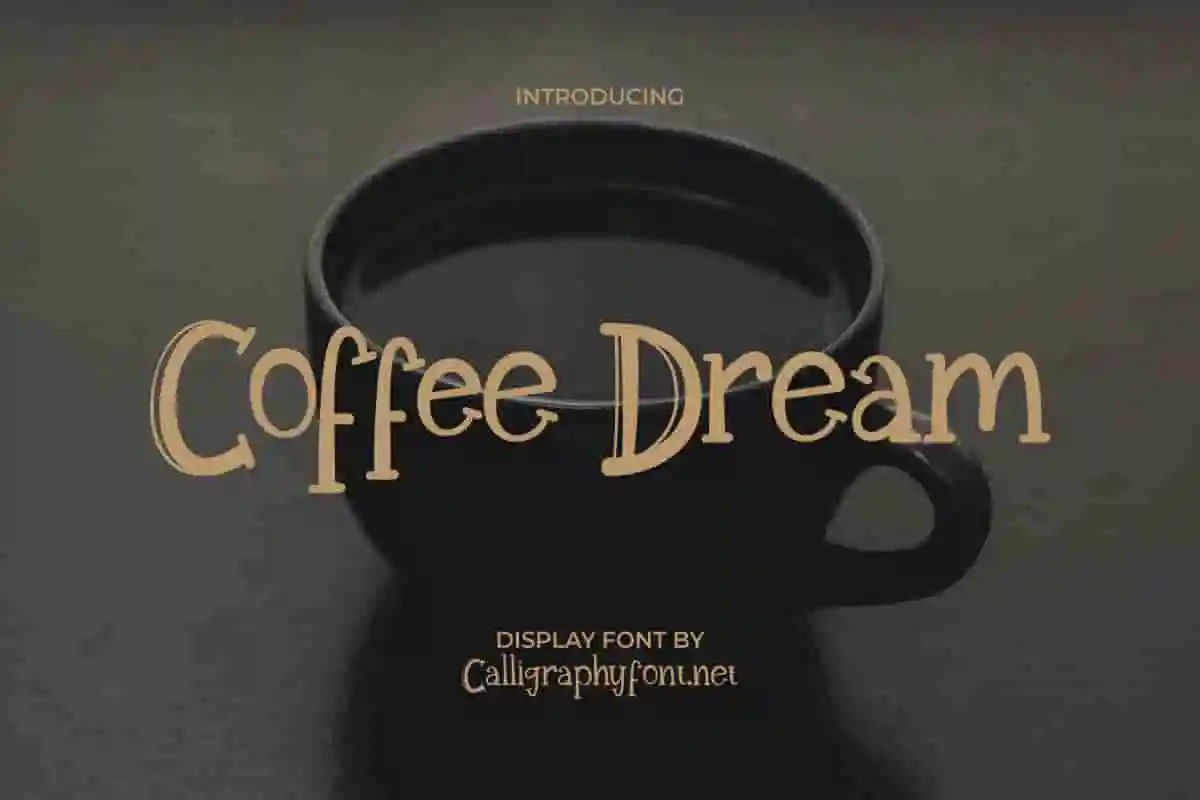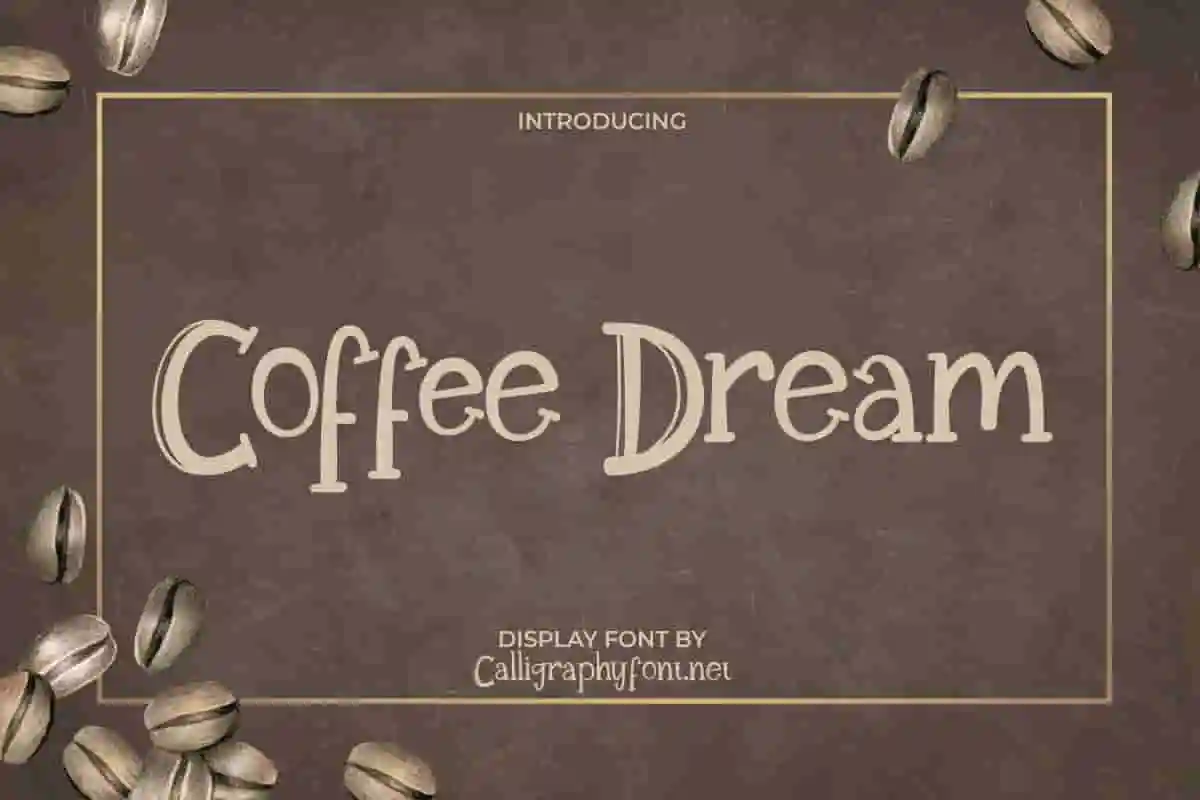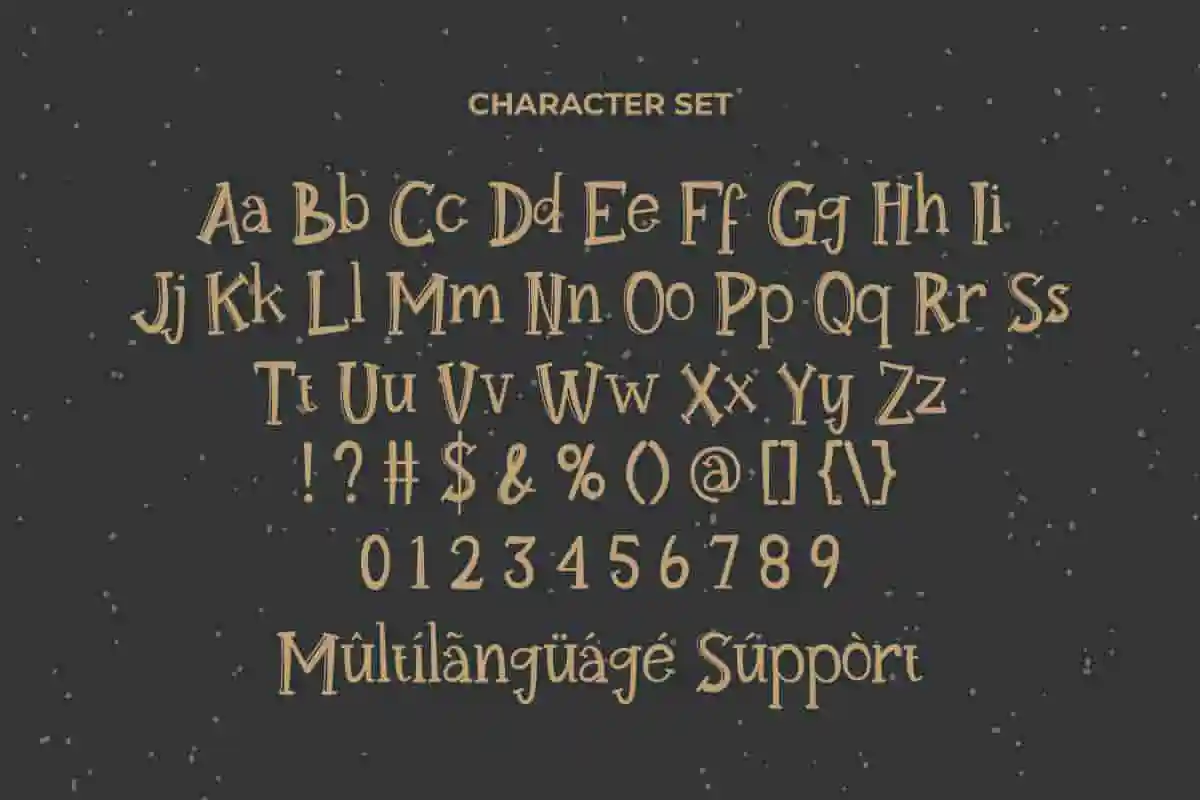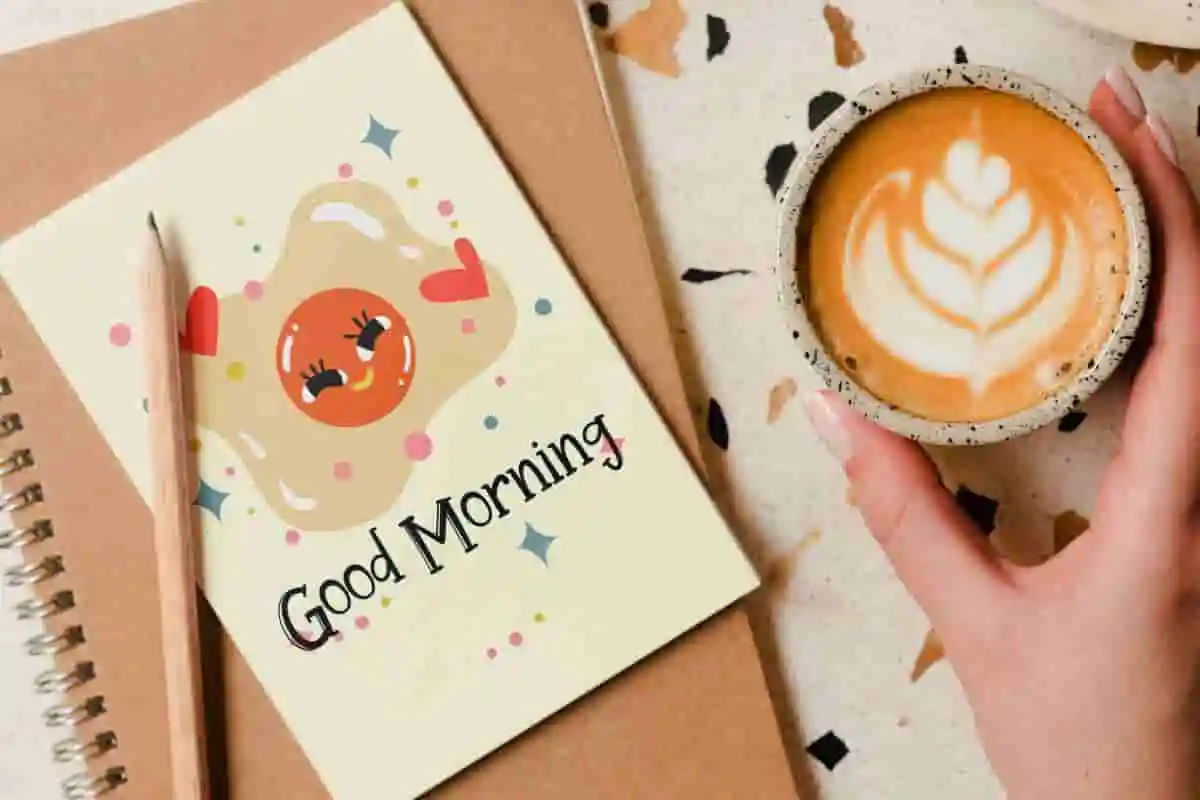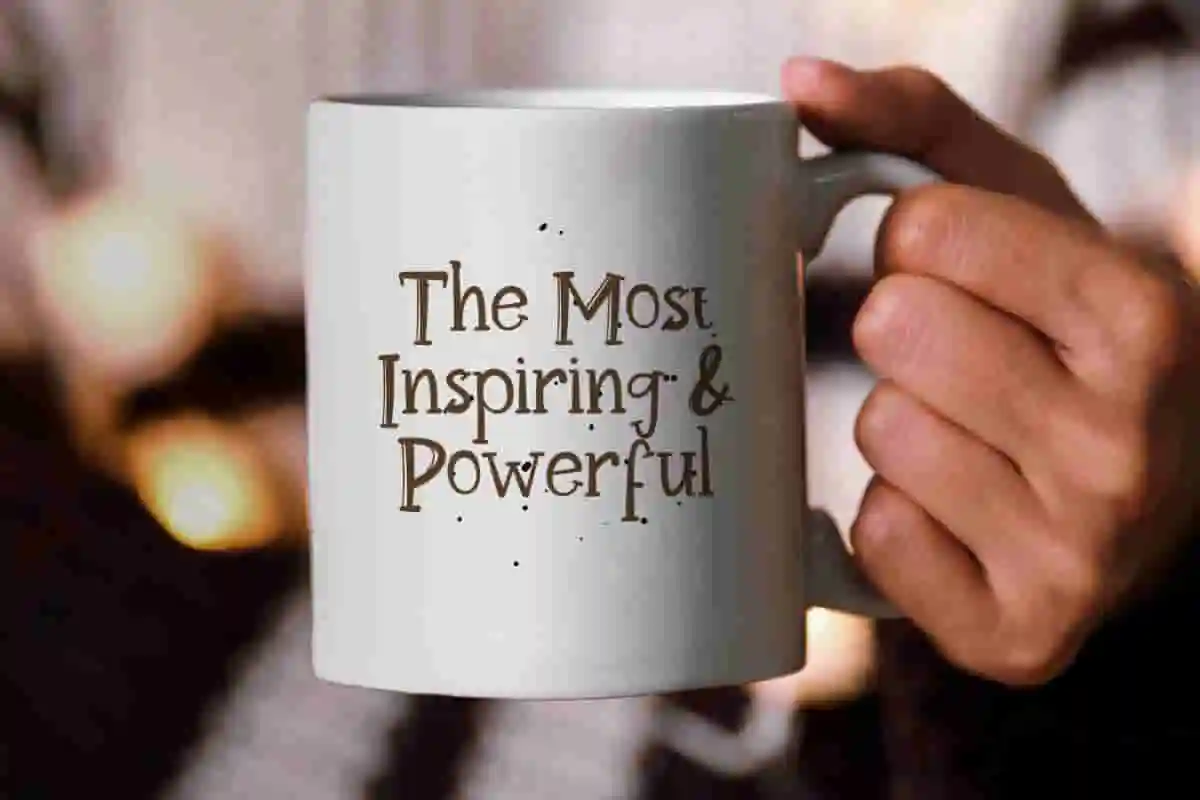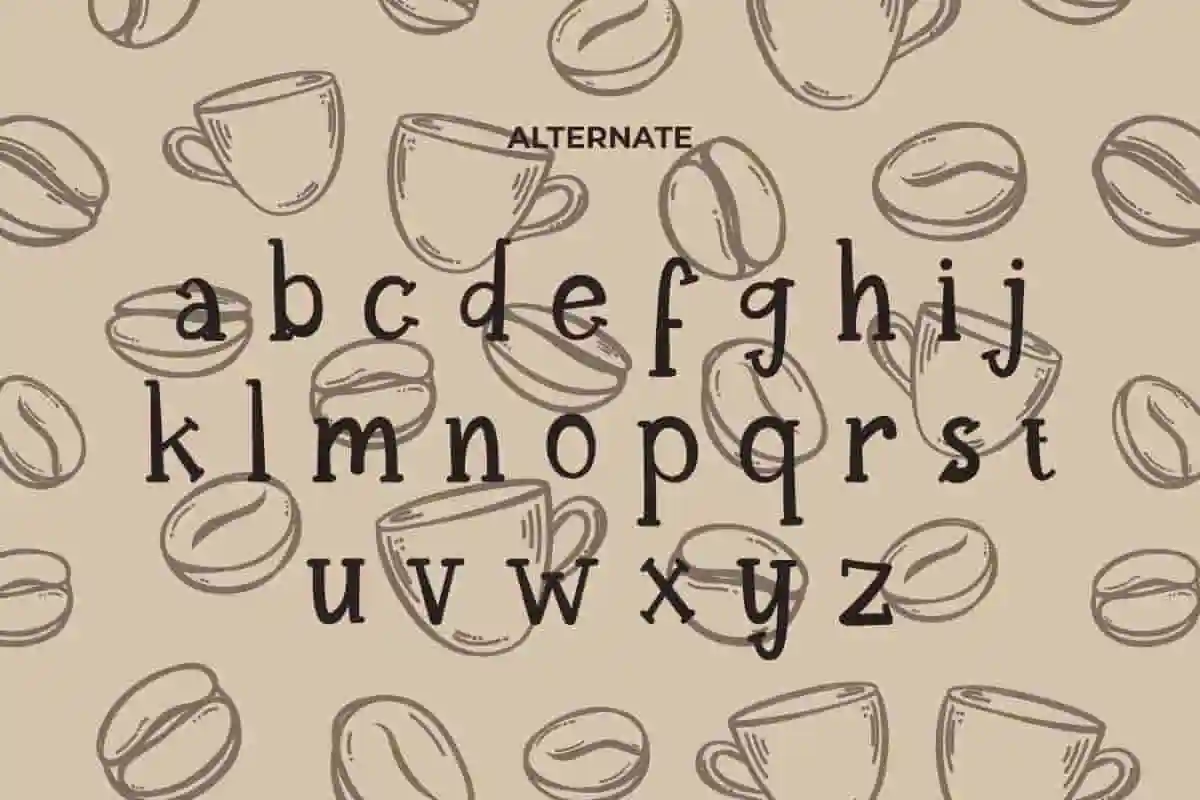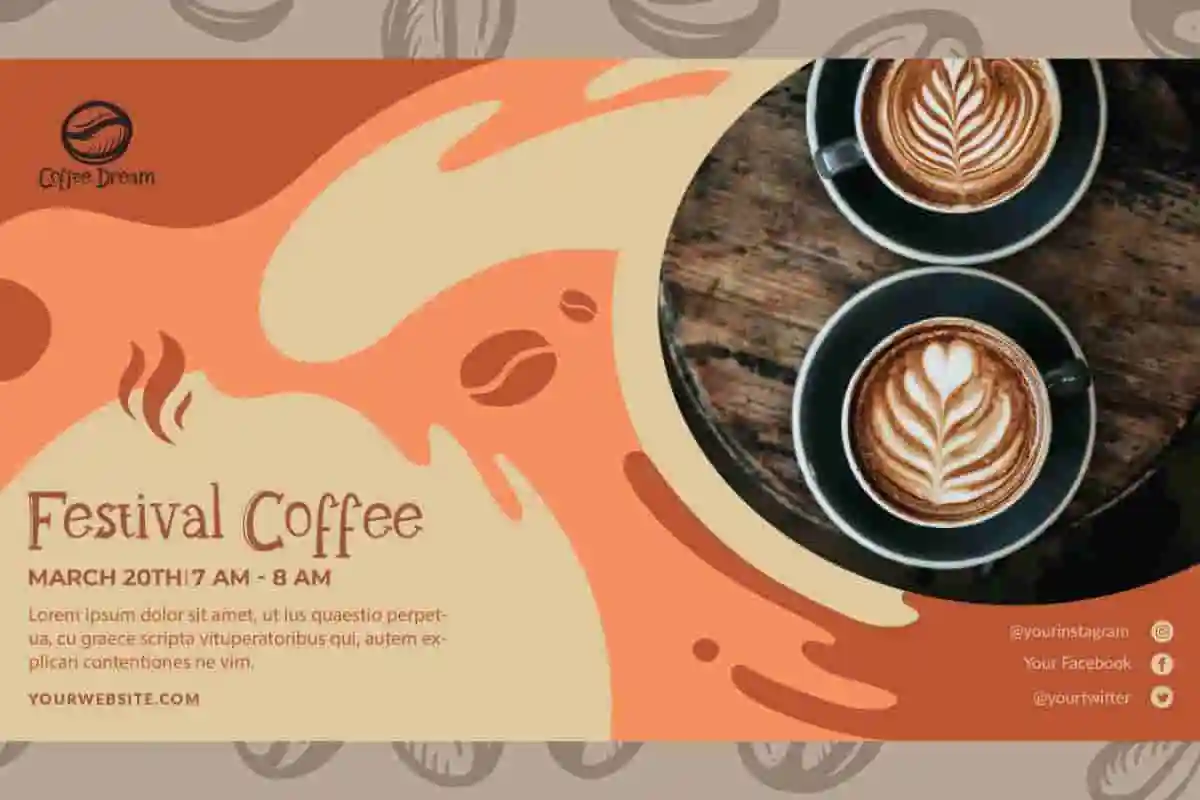
Coffee Dream Display Font
Coffee Dream Font is designed exclusively by CalligraphyfFonts.net with simple and casual display look. It’s unique, fun and ready to be used on any project you have in mind.
Coffee Dream Font is a simple textured display font with casual letter shapes that will make it looks original handwriting looks. The for is designed exclusively by Calligraphy Fonts.net and it will be perfect for use in business card, product designs, signage, quote, title. This time serif with different look. This font that is simple readable, smart and stylish.
Brew some creativity into your designs with Coffee Dream Display Font — a stylish, handcrafted typeface inspired by the cozy charm of coffee shops, handwritten menus, and weekend mornings.
With smooth curves, playful letterforms, and a relaxed, welcoming vibe, Coffee Dream is perfect for cafe branding, packaging, social media content, lifestyle blogs, product labels, or anything that calls for warmth and personality. Every character is carefully designed to feel casual yet classy — just like your favorite cup of coffee.
This display font pairs beautifully with minimalist layouts and organic design elements. Whether you’re creating a logo for a small business or adding charm to your digital content, Coffee Dream adds a friendly, handcrafted feel that instantly connects with your audience.
Introducing Coffee Dream Display Font, a charming and modern typeface inspired by the warmth of your favorite café. With soft curves, smooth strokes, and a relaxed personality, this font brings comfort and creativity together in one beautiful package.
This Coffee Dream Font includes uppercase and lowercase characters, numbers, punctuation, alternates and a selection of international characters as well. You will get OTF, TTF & WOFF files. Every letter has a unique and beautiful touch that will make your design come alive!